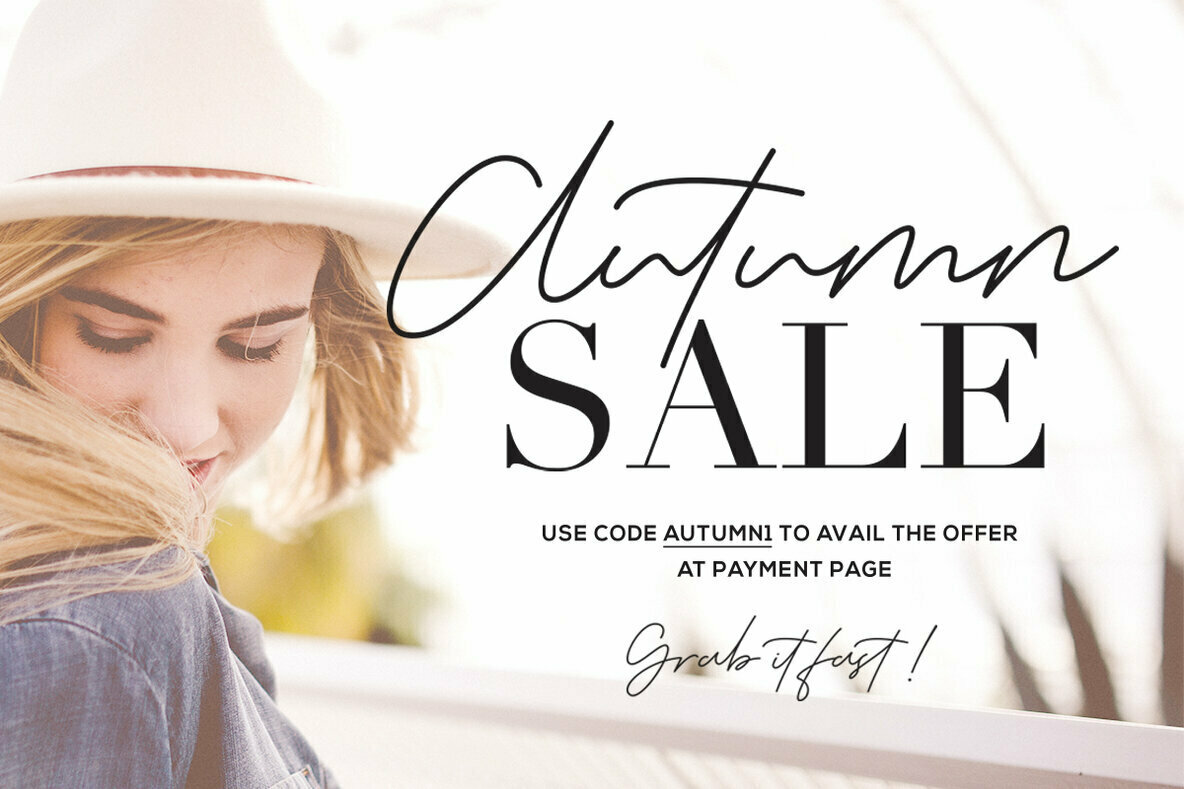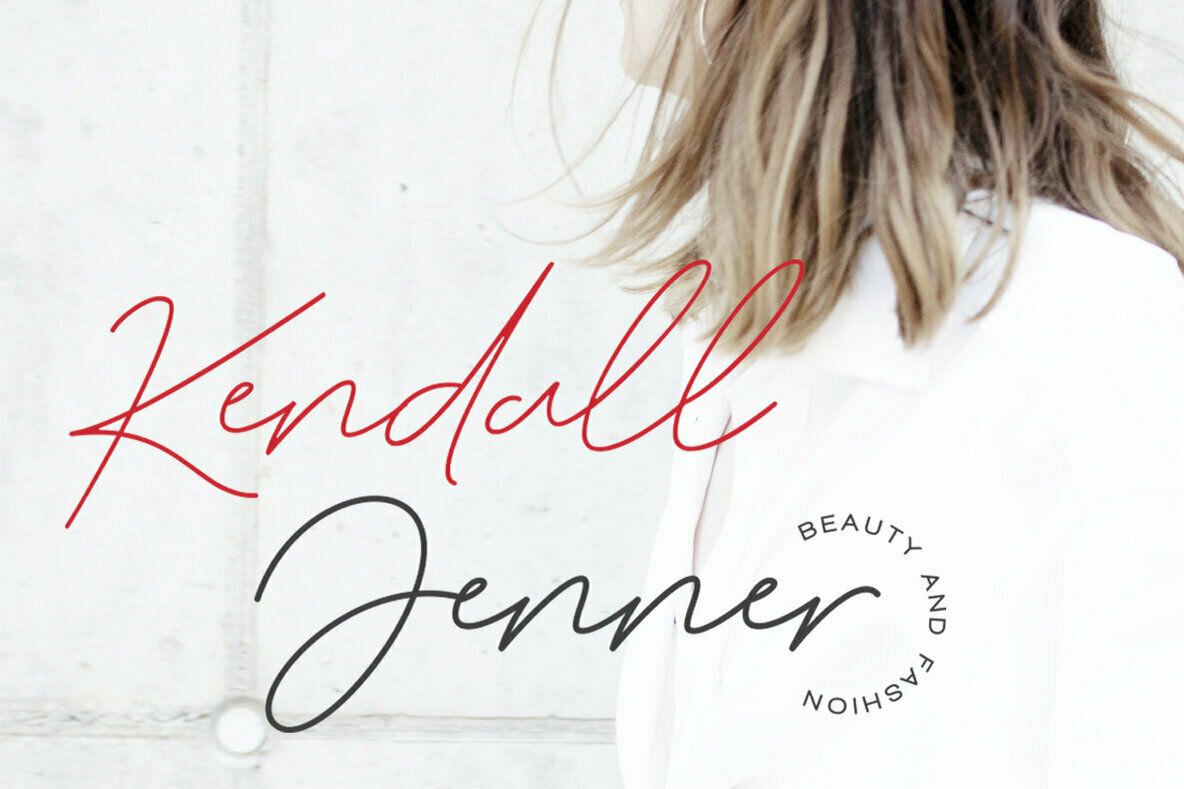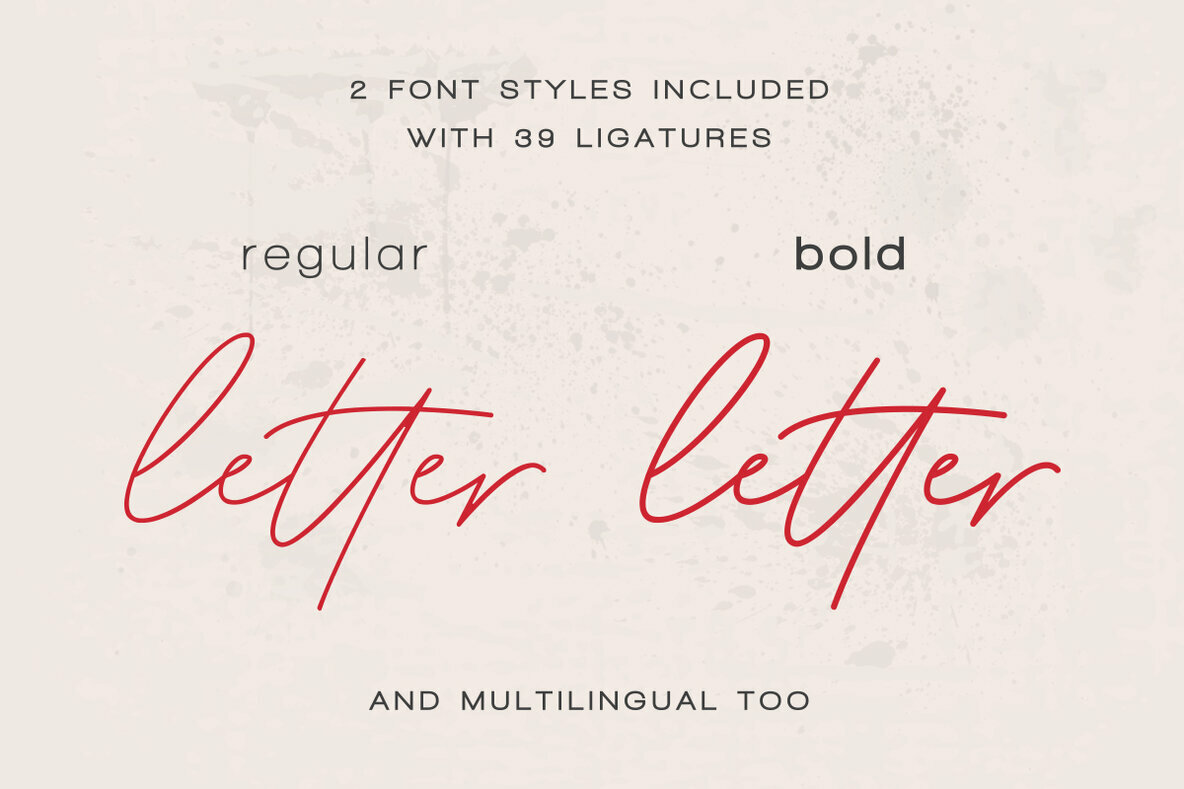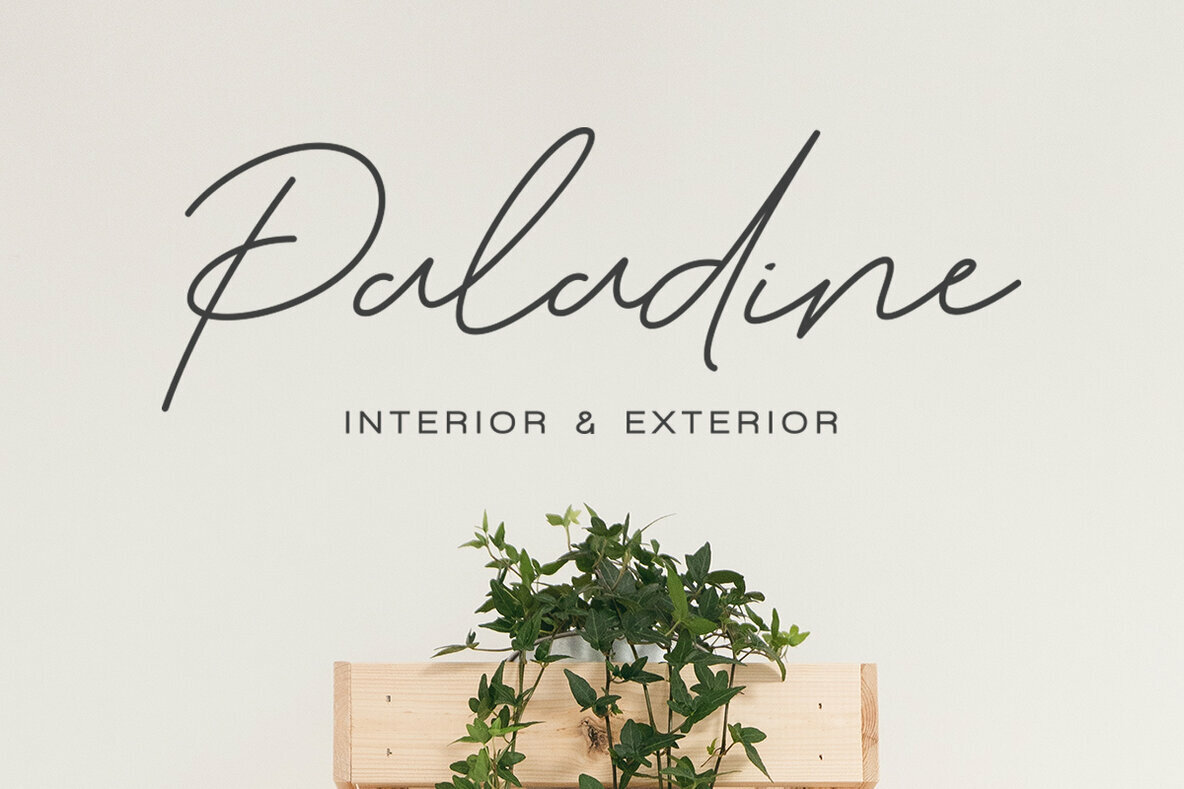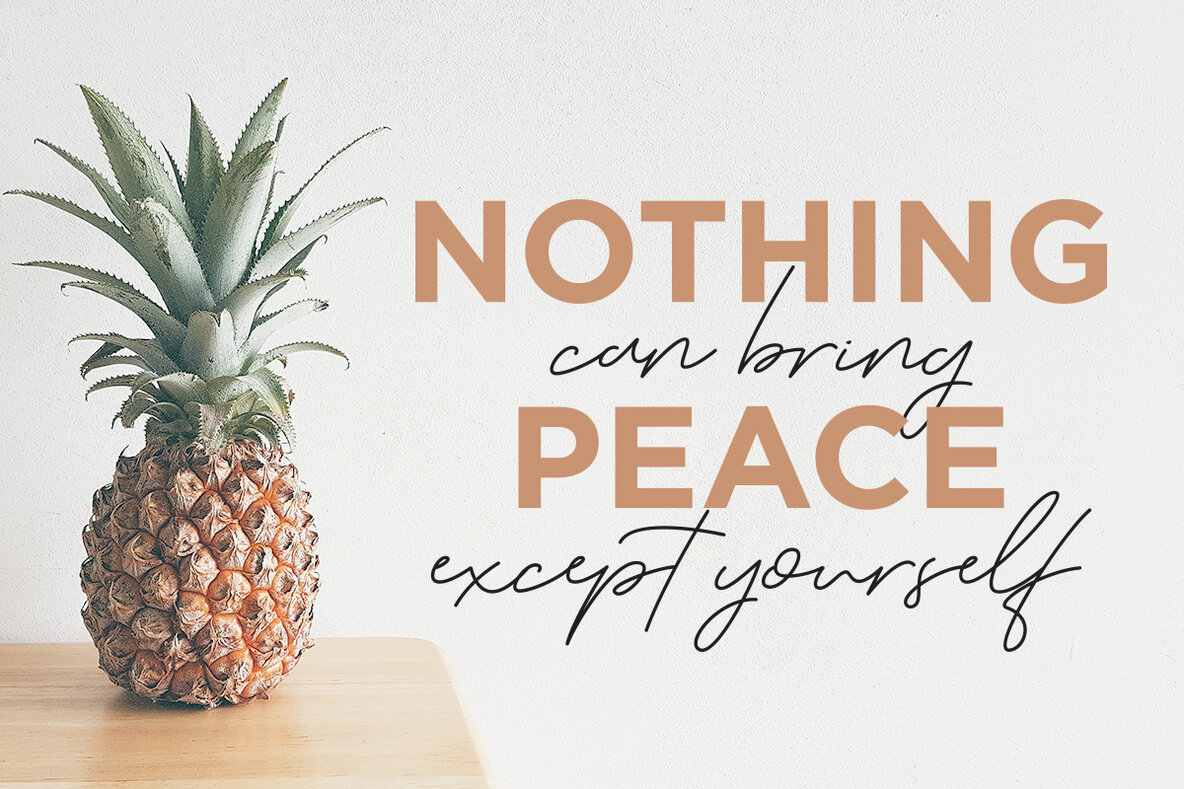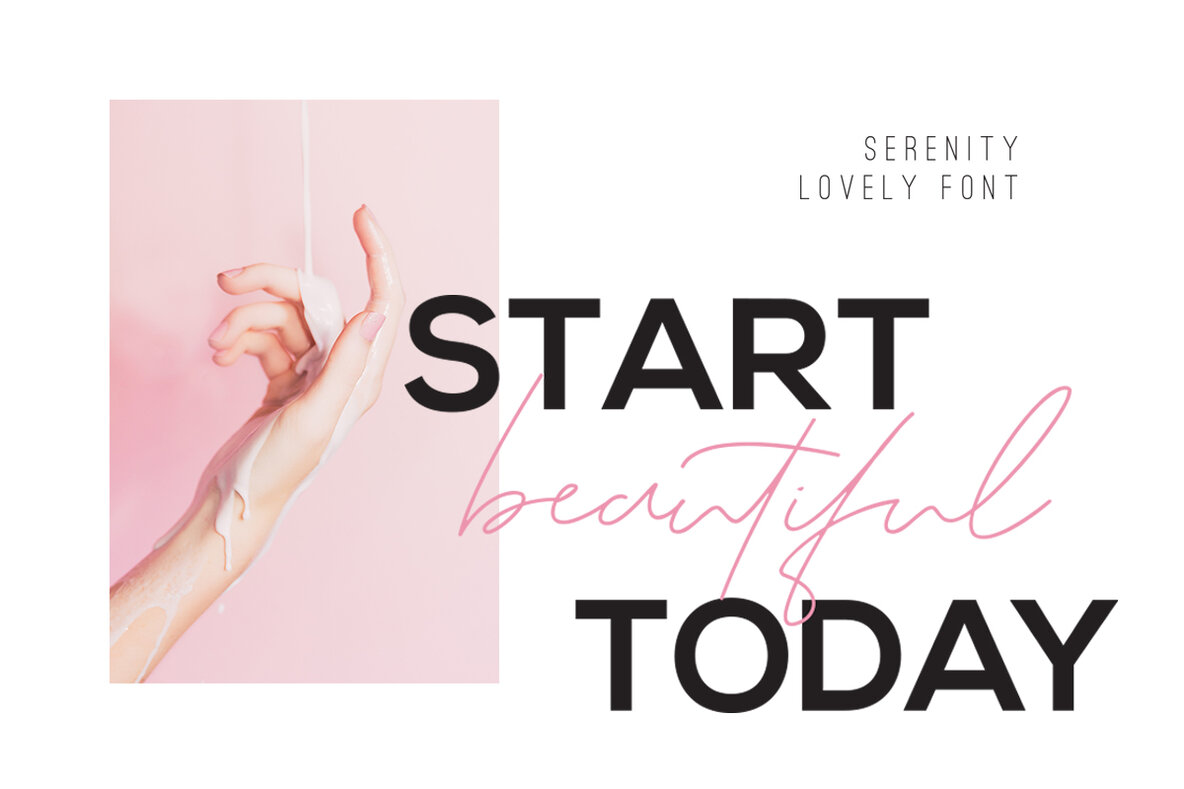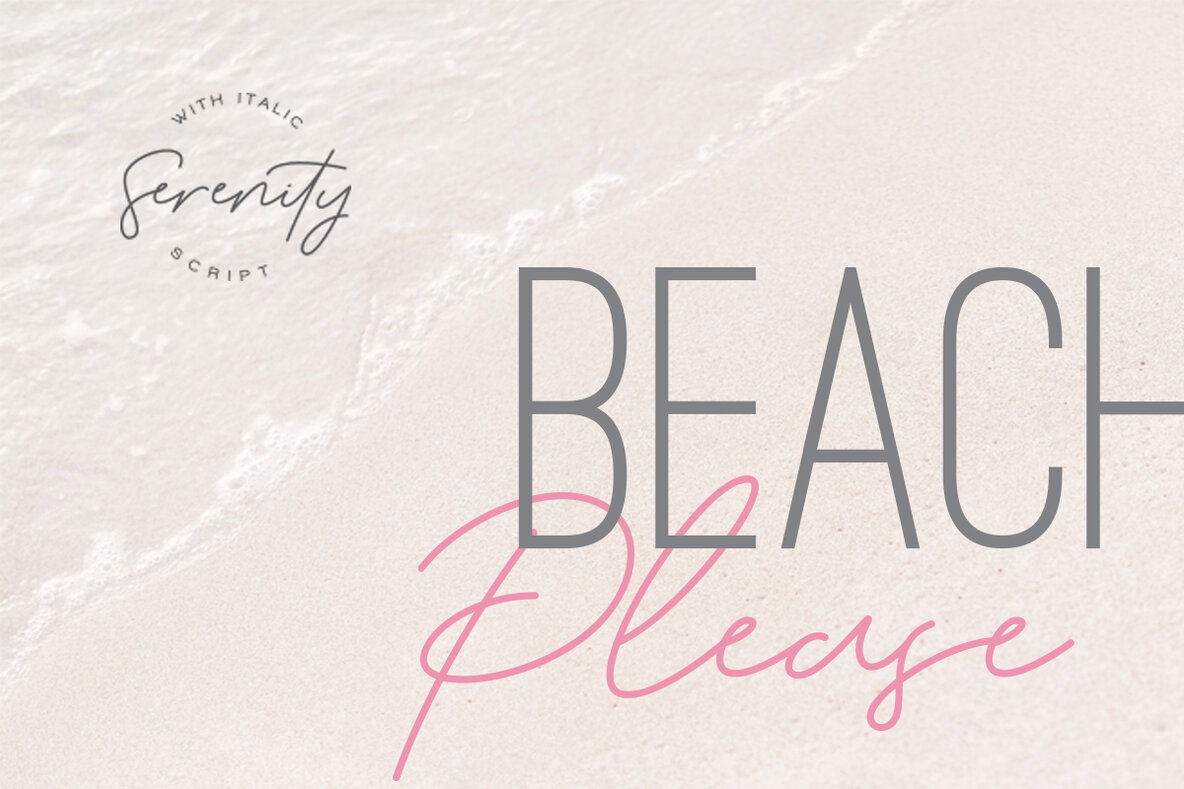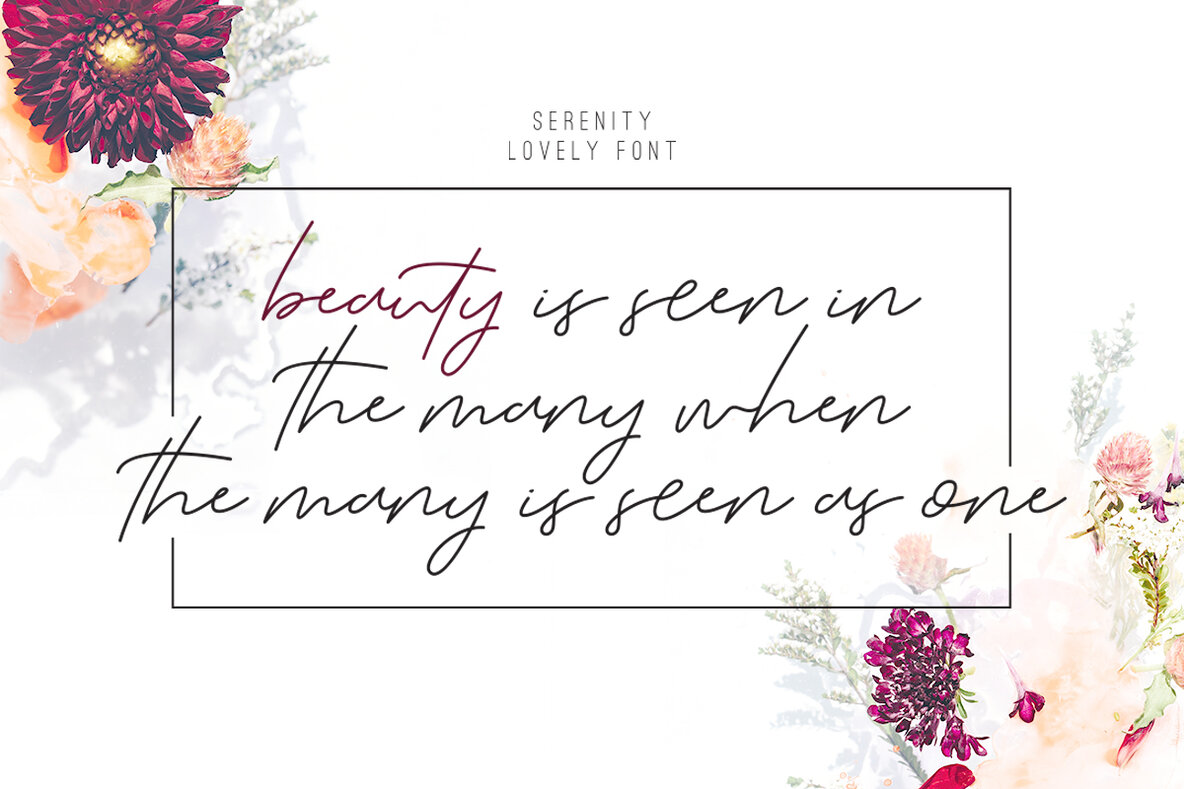
The Serenity Font
Serenity by Dharmas Studio offers a refreshing take on script typography, merging elegance with functionality. Its fluid nature and varied character forms make it an essential tool for designers seeking to add a personal touch to their work. Ideal for logos, branding, and creative projects, Serenity's versatility extends to photography, fashion, and print materials, making it a valuable addition to any designer's toolkit.Serenity: A Signature Script for Versatile Design